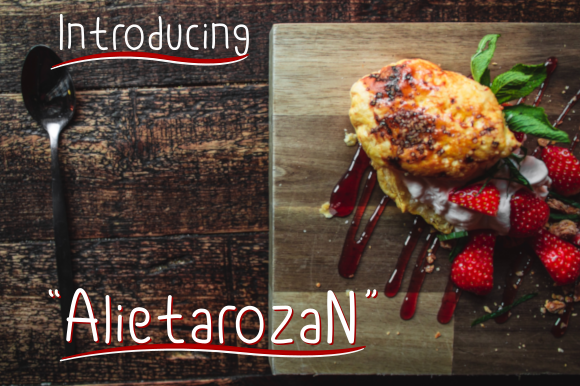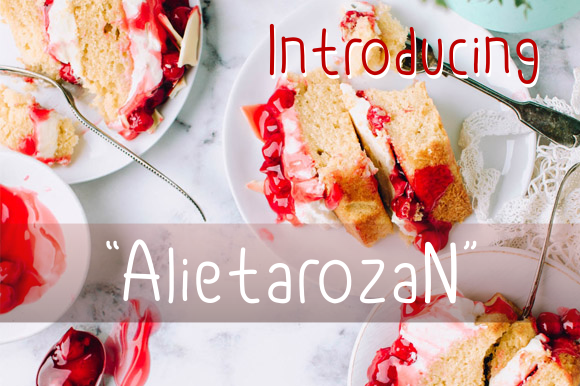
Alietarozan Font
About Alietarozan Font
Alietarozan is a simple, yet fun handwritten font with an authentic twist. It will easily turn any crafty project into an eye-catcher.